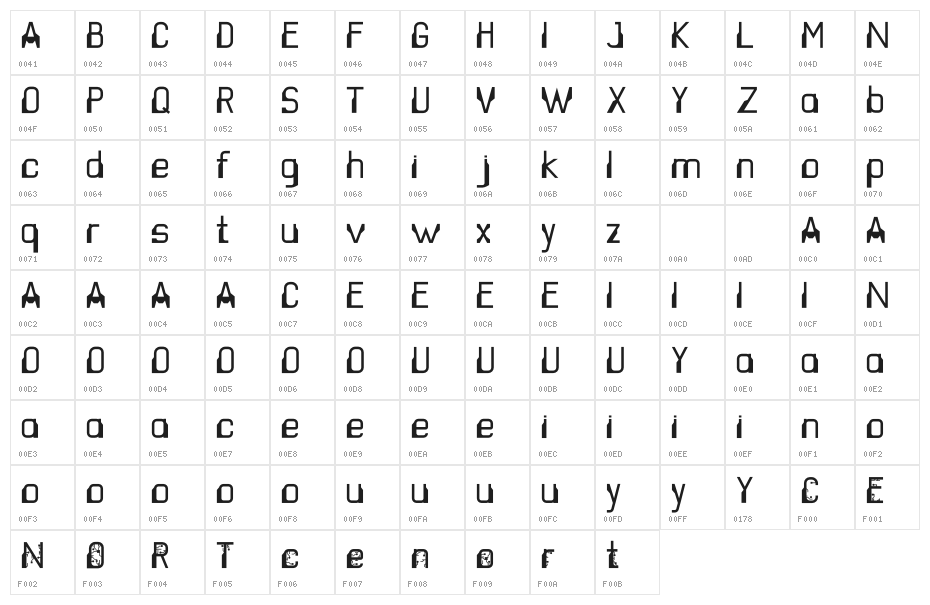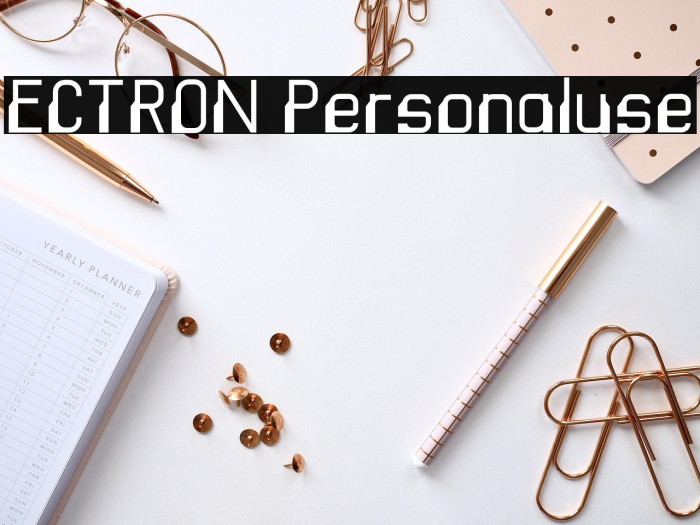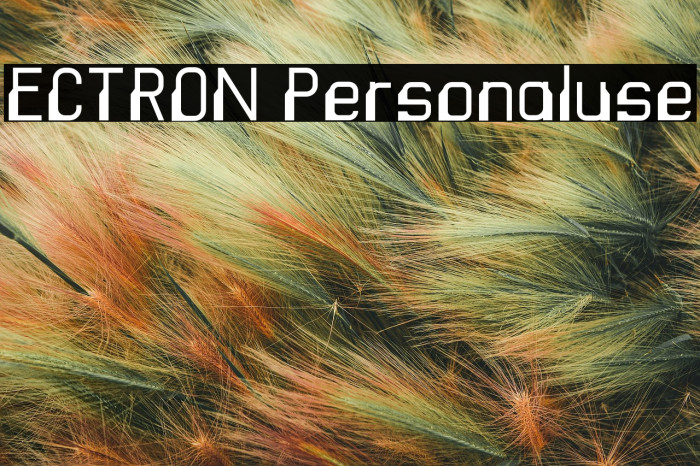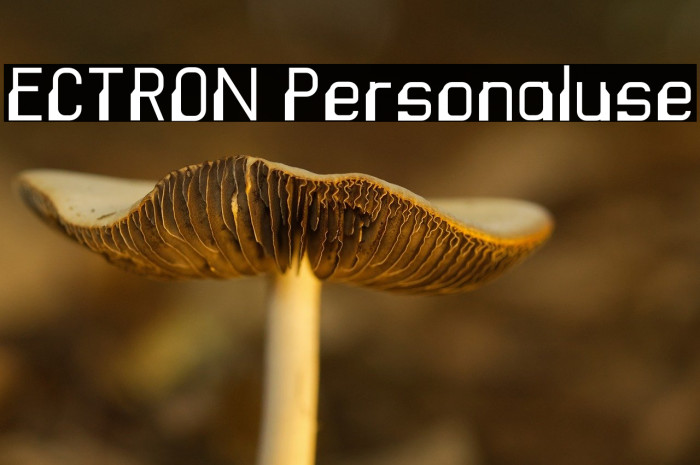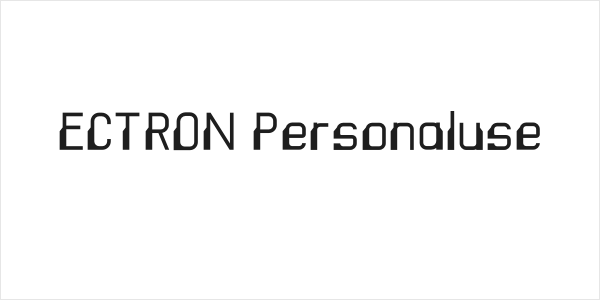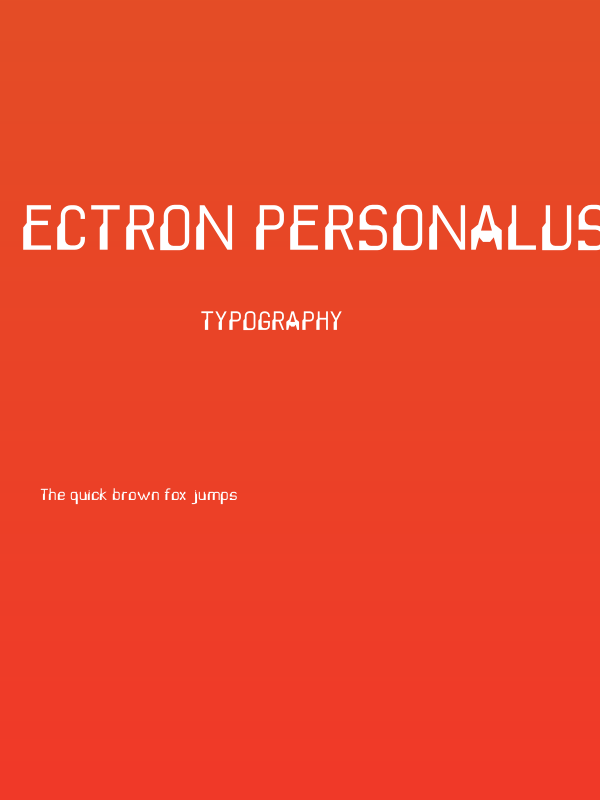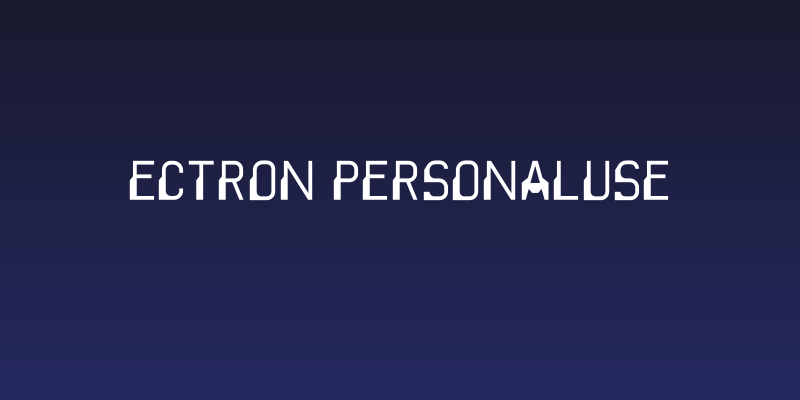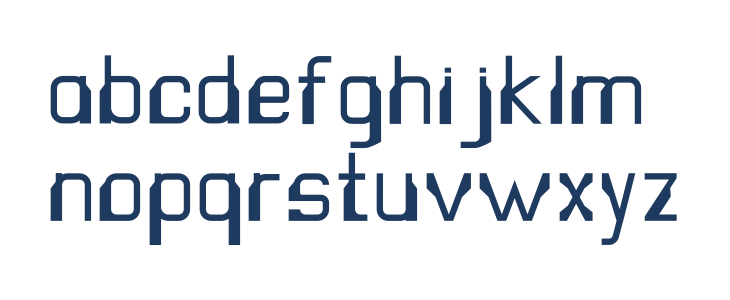
ECTRON Personaluse Font
ECTRON Personaluse Description
This font features a modern and futuristic design with a geometric structure. The uppercase letters are bold and angular, with sharp edges and a distinct industrial feel. The lowercase letters maintain a consistent style, offering a sleek and streamlined appearance. The font lacks traditional curves, opting instead for straight lines and sharp angles, giving it a unique and edgy look. The characters are evenly spaced, providing a clean and organized appearance. This font is ideal for projects that require a contemporary and tech-savvy aesthetic.
| Proposed Projects | Ideal for technology branding, sci-fi themed designs, video game interfaces, and modern posters. |